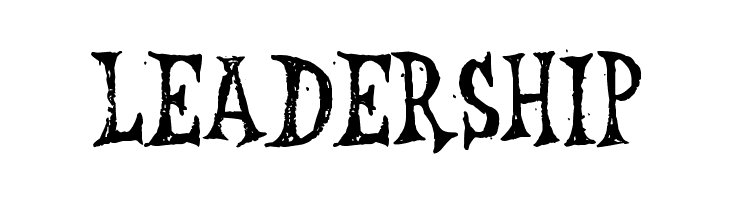
Christmas Cherfully Font
- Font: Christmas Cherfully
( Fonts by Tony O`Farrell )
A bold, distressed gothic-style font with a dramatic and textured appearance.